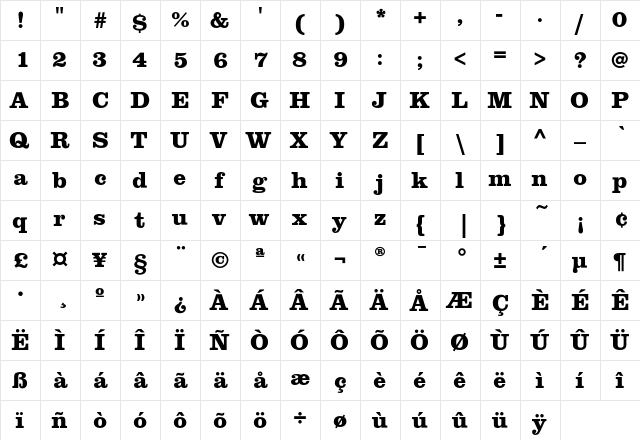
ClarendonEF ExtraBold
Design Context for ClarendonEF Typeface
ClarendonEF combines the readability of serif typography with the visual weight of a slab construction, resulting in a typeface that feels both authoritative and approachable. Its bold stroke weight gives it real presence on the page.
Works well in editorial design, news publishing, impactful branding, and poster typography.
Pro Tip: Try ClarendonEF set tight in headlines for a classic editorial feel. Its slab serifs create strong horizontal rhythm that anchors a page layout.